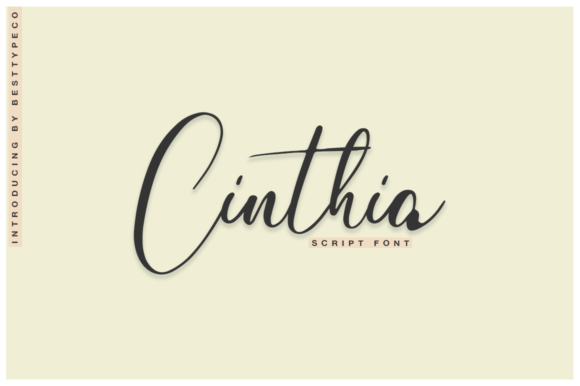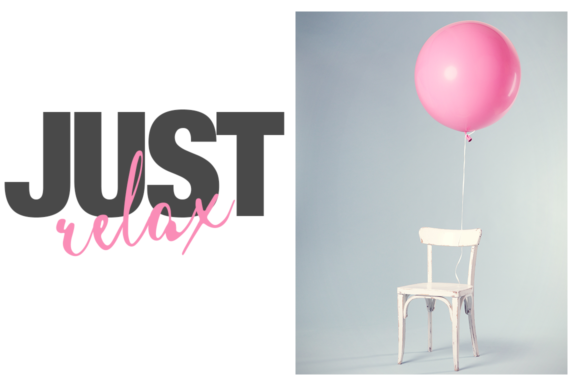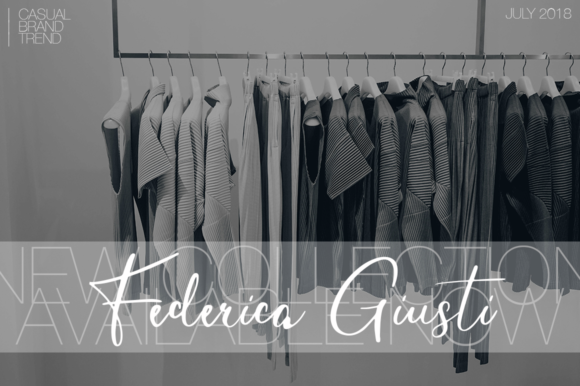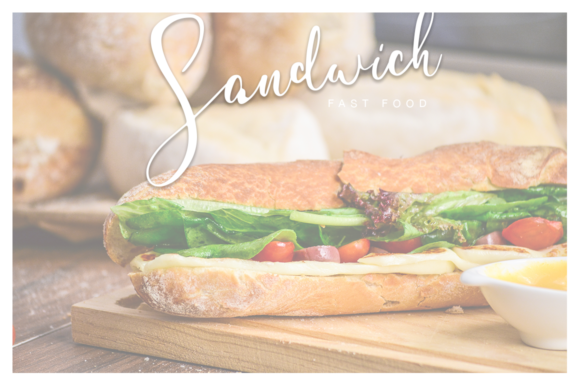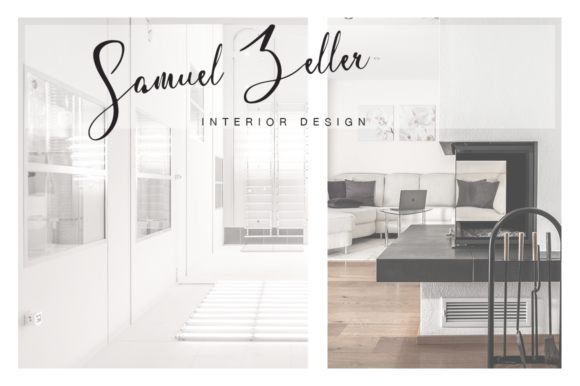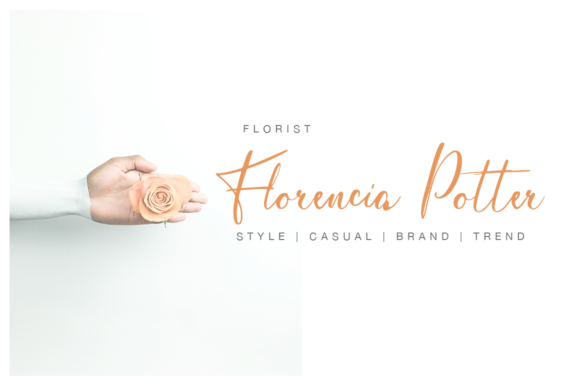
HomeScript FontsCinthia Font Script Fonts Cinthia Font FacebookXPinterestWhatsApp Cinthia Font Poster 2 Cinthia Font Poster 3 Cinthia Font Poster 4 Cinthia Font Poster 5 Cinthia Font Poster 6 Cinthia Font Poster 7 Cinthia Font Poster 8 About Cinthia Font Cinthia is a strong and authentic script font with a unique style. Fall in love with its romantic style. DOWNLOAD NOW People also explored Omaha Beach Font Roschelle Font Moste Font December Font Lylia Font Greatheart Font Remember Downey Font Writer Font 320 0 TagsCinthia Font Previous articleZero Style FontNext articlePower of Love Font LEAVE A REPLY Cancel reply Comment: Please enter your comment! Name:* Please enter your name here Email:* You have entered an incorrect email address! Please enter your email address here Website: Save my name, email, and website in this browser for the next time I comment. Personal Use Free Just Smile Personal Use Free Read more about this font The Shocker Personal Use Free Read more about this font Made of Concrete Personal Use Free Read more about this font Numberpile Personal Use Free Read more about this font BLOG Modern Sans-Serif Fonts That Brands Love in 2025 In 2025, modern sans-serif fonts remain a top choice for brands looking to project clarity, professionalism, and... Elegant Wedding Invitation Fonts – Handwritten & Script Fonts How to Cut Any Font on Cricut: Convert a Font to SVG (Free) Best Fonts for YouTube Videos: Make Your Thumbnails Stand Out